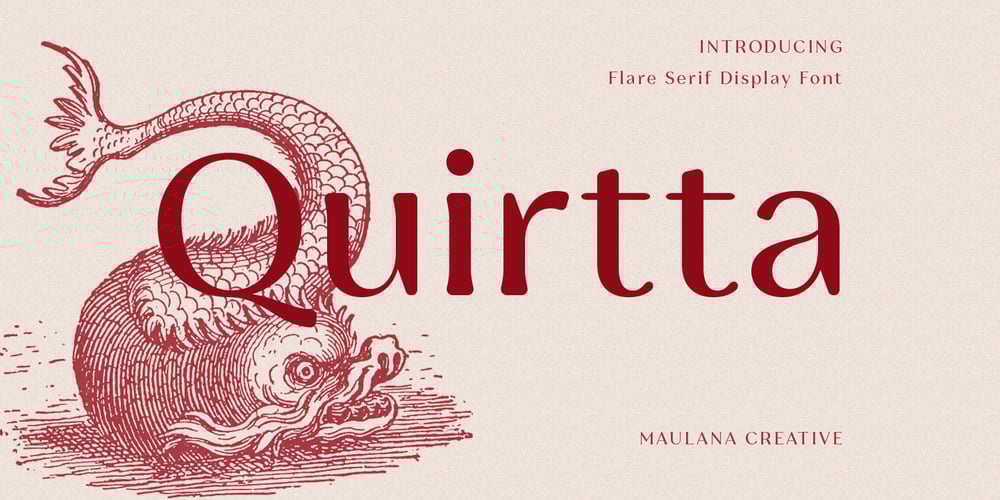
MC Quirtta Font Family was designed by Gilang Maulana and published by Maulana Creative. MC Quirtta contains 1 styles and family package options. Quirtta is a semi serif or Flare Serif font. Round SemiBold stroke, fun character with a bit of ligatures and alternates. To give you an extra creative work. Quirtta font support multilingual more than 100+ language. This font is good for logo design, Social media, Movie Titles, Books Titles, a short text even a long text letter and good for your secondary text font with script or serif. Make a stunning work with Quirtta font. Cheers, Maulana Creative